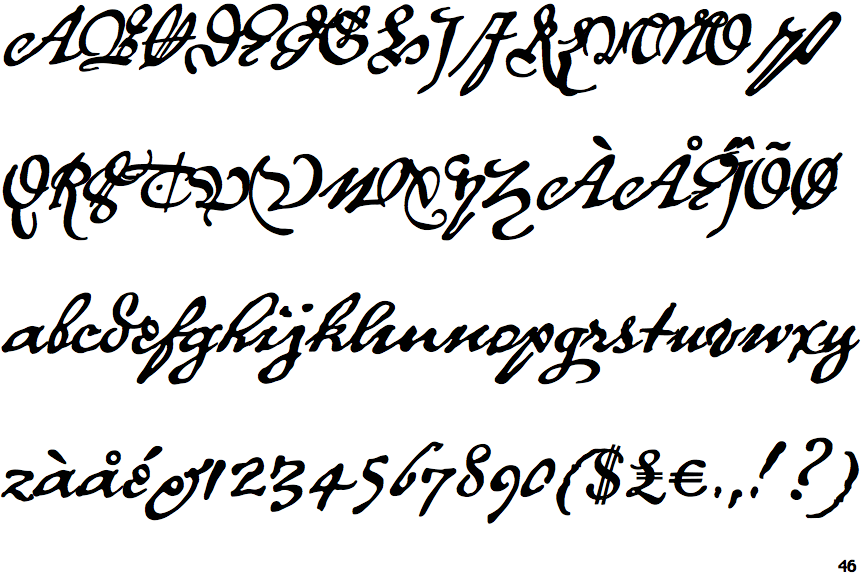
P22 Royalist
Based on "Secretary Hand" from the time of the English Civil War, circa 1632.
Designer: Ted Staunton Year: 2005 Publishers: International House of Fonts and P22 Part of the "Staunton Script Family" of fonts designed by Ted Staunton for his historic novel centered around a family bible and the handwritten annotations through seven generations. |